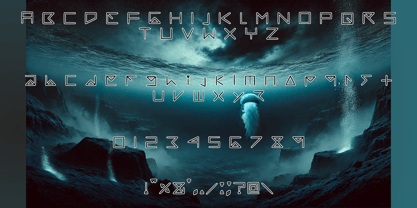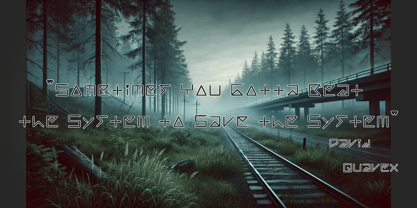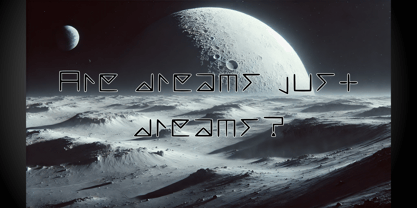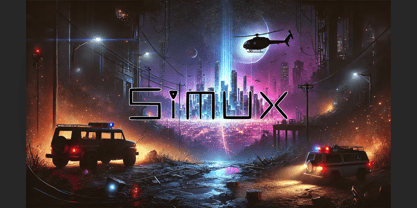
Simux
von TutiFresh
Die Schriftfamilie Simux wurde von Julian Cisneros entworfen und von TutiFresh veröffentlicht. Simux enthält 1 Stile. Mehr über diese Familie
Futuristic sci-fi inspired font with dramatic composition. Aesthetically symmetric design, crafted on a pattern-based grid. Excellent for video games but also suitable for other professional industries or personal use.